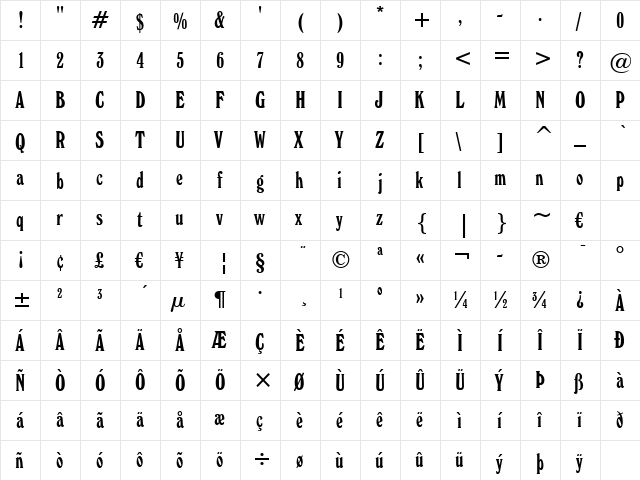
Windsor El BT Regular
Design Context for Windsor El BT Typeface
Windsor El BT offers clean, dependable letterforms without strong stylistic allegiance, making it a practical choice for designers who need flexibility.
Pro Tip: Use Windsor El BT in both headline and body roles to test its range before committing to a single application.